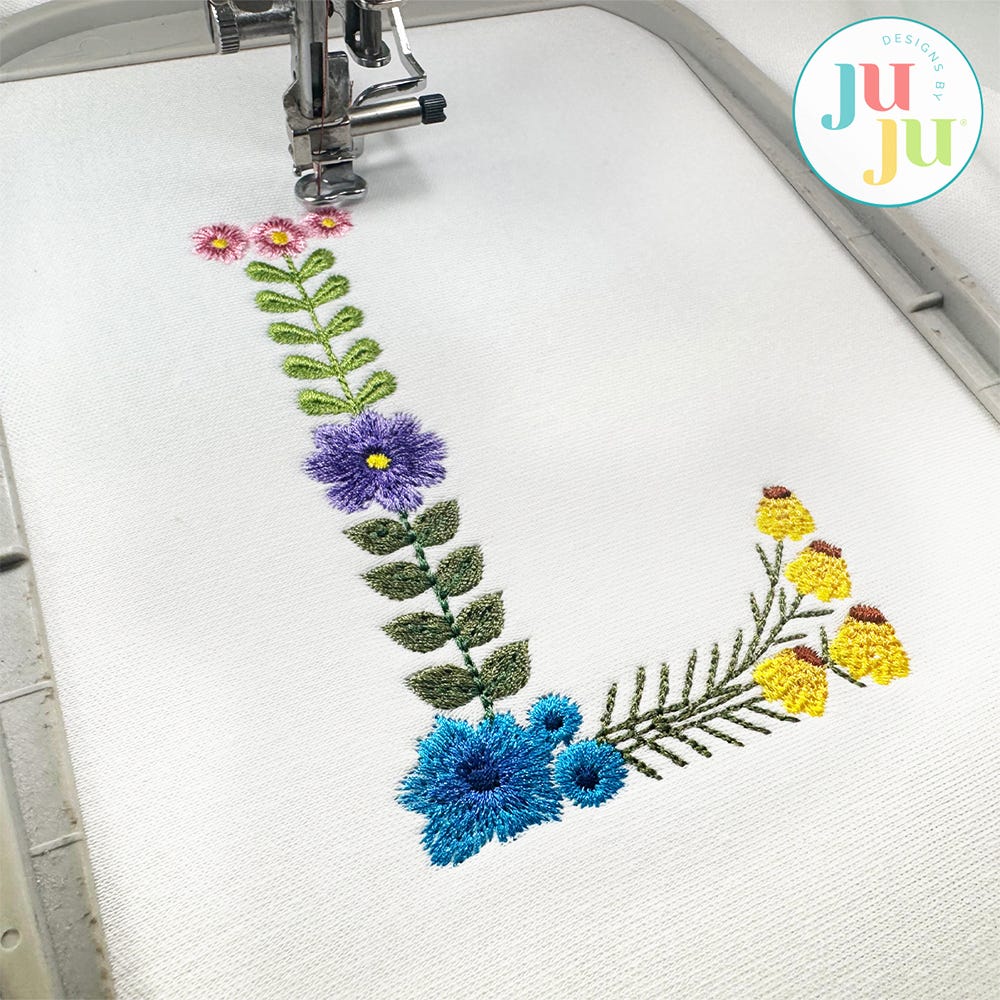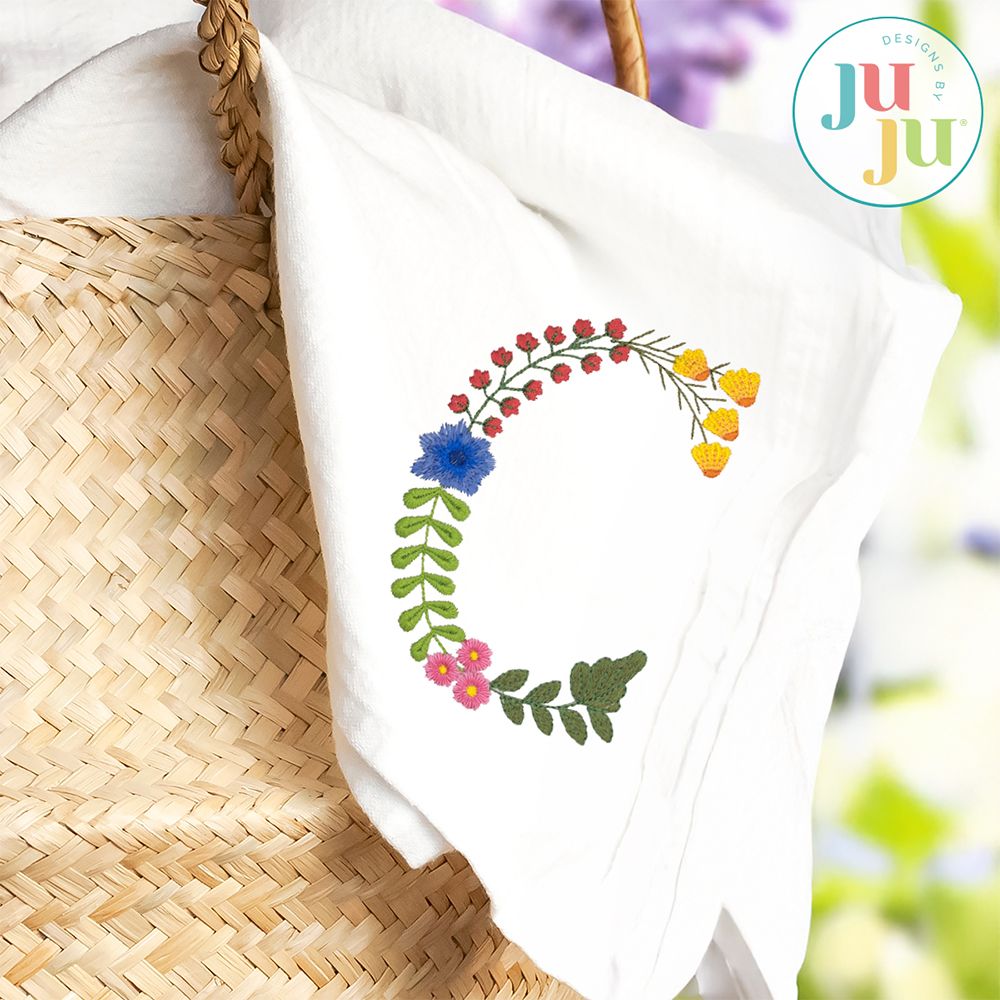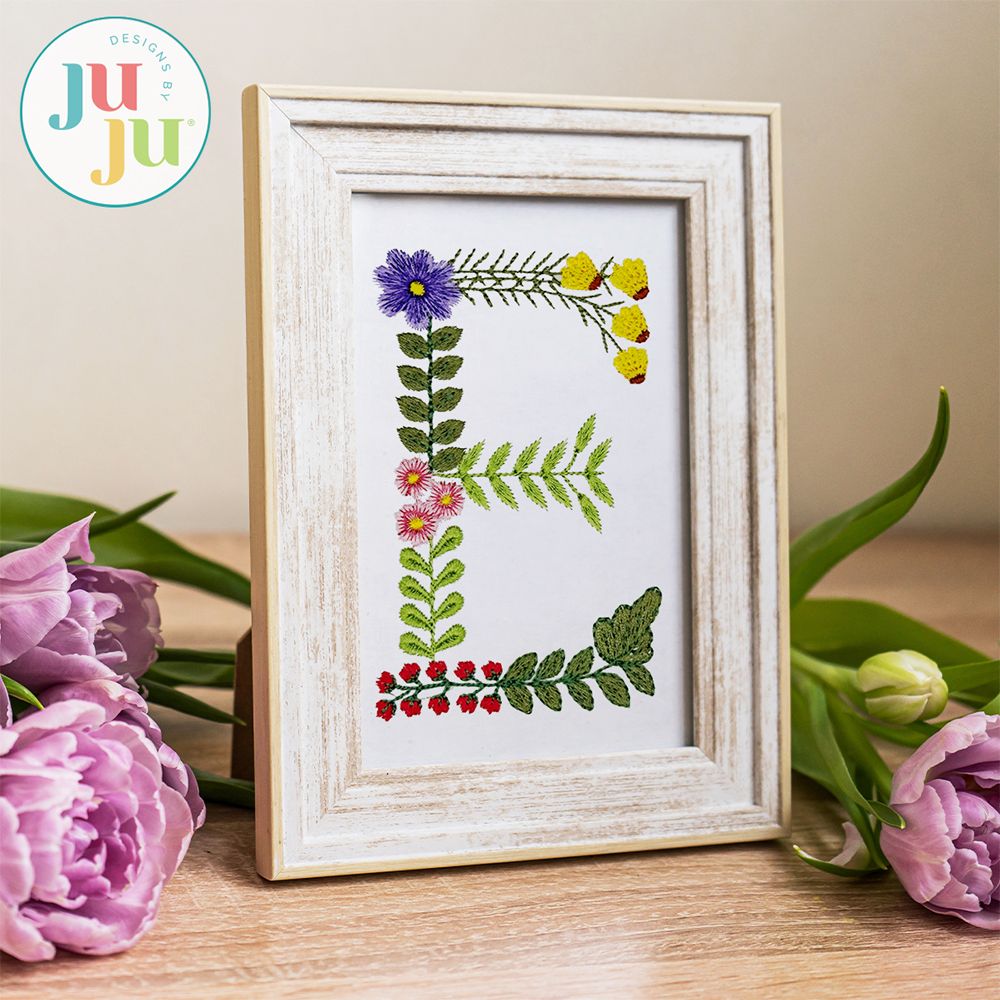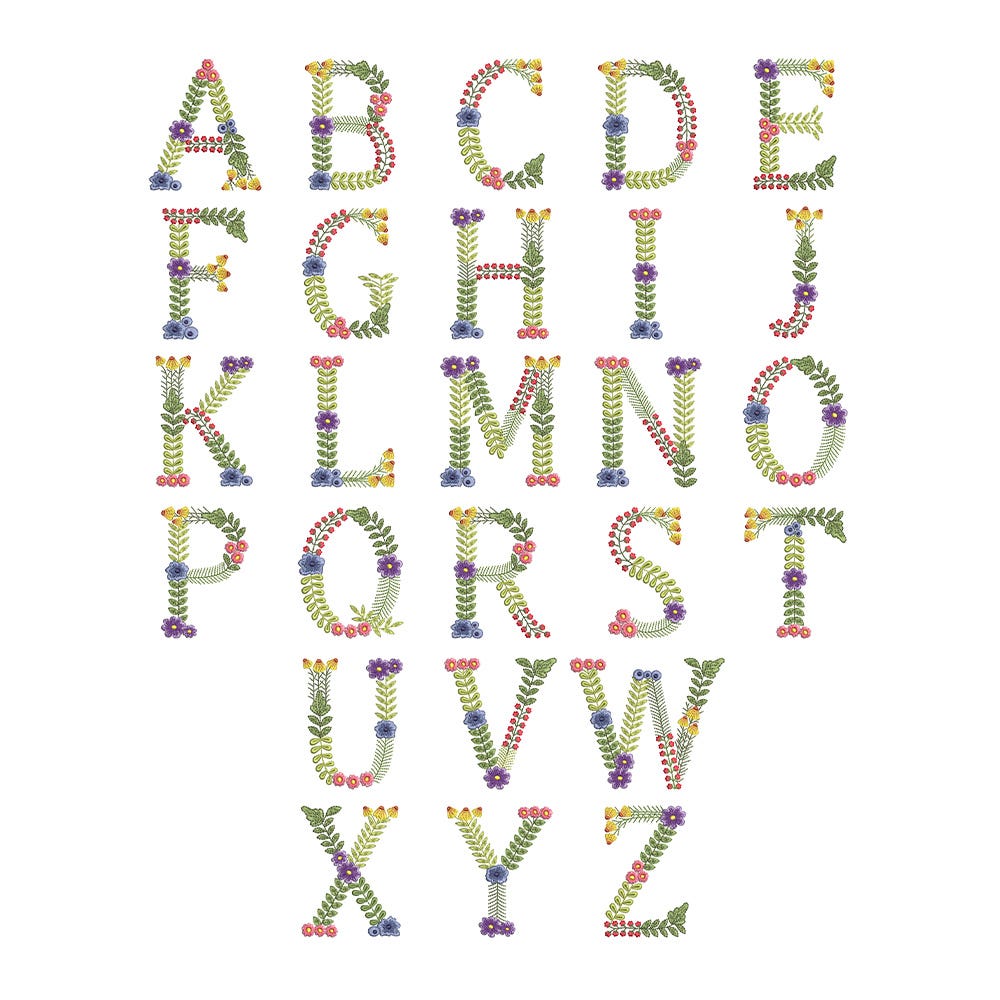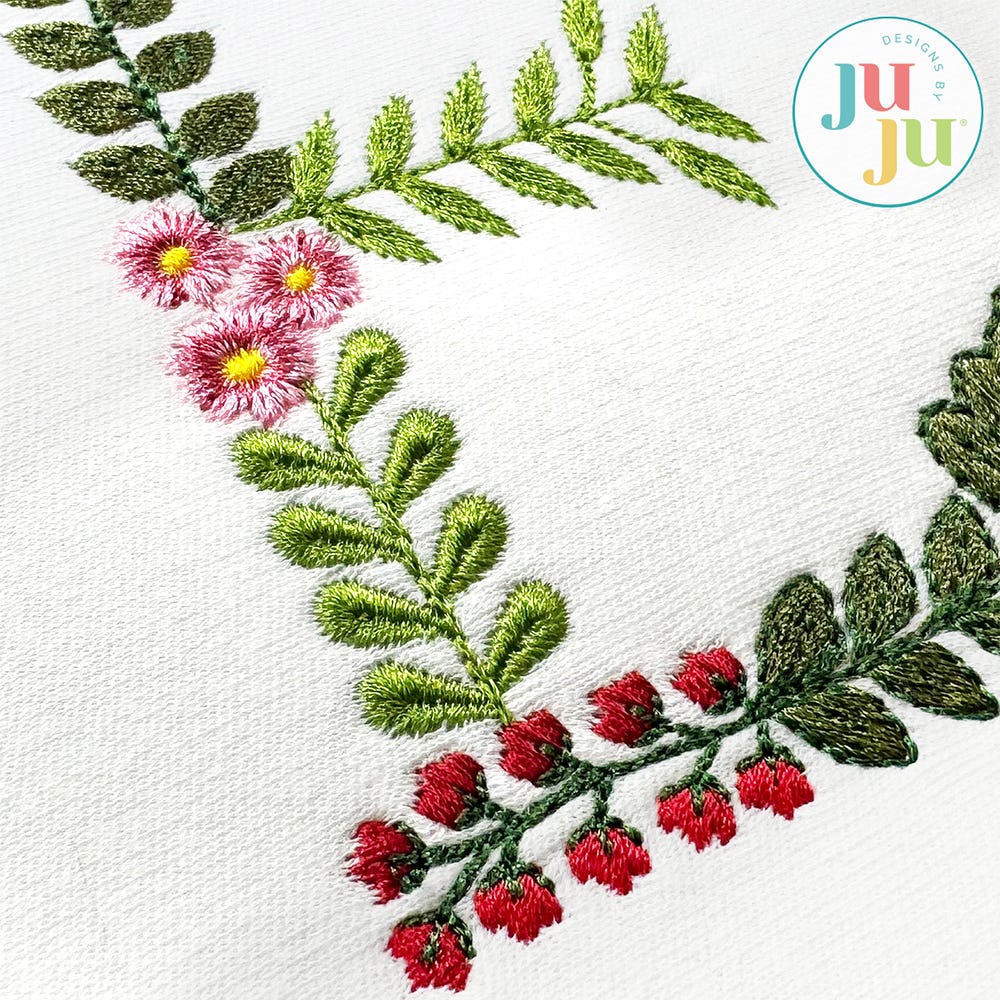
Garden Heirloom Floral Satin Stitch Monogram Embroidery Font
Our Heirloom Garden Floral Monogram is the fancy you crave!  This monogram showcases a blend of embroidery stitch types to create a gorgeous variety of vines, leaves, and flowers to form the shape of each letter.